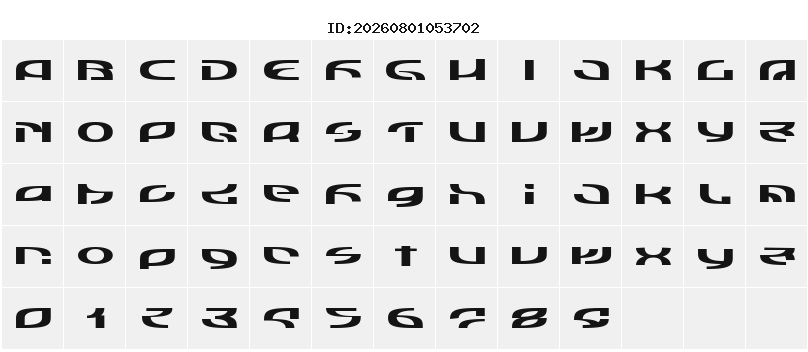
LVDC Mrs Chan Preview
• Font Name: LVDC Mrs Chan
• Full Font Name: LVDC Mrs Chan
About LVDC Mrs Chan.ttf
LVDC Mrs Chan.ttf is a modern, elegant sans-serif font designed for ultimate readability and visual harmony. Perfect for branding, headlines, web design, and print materials.